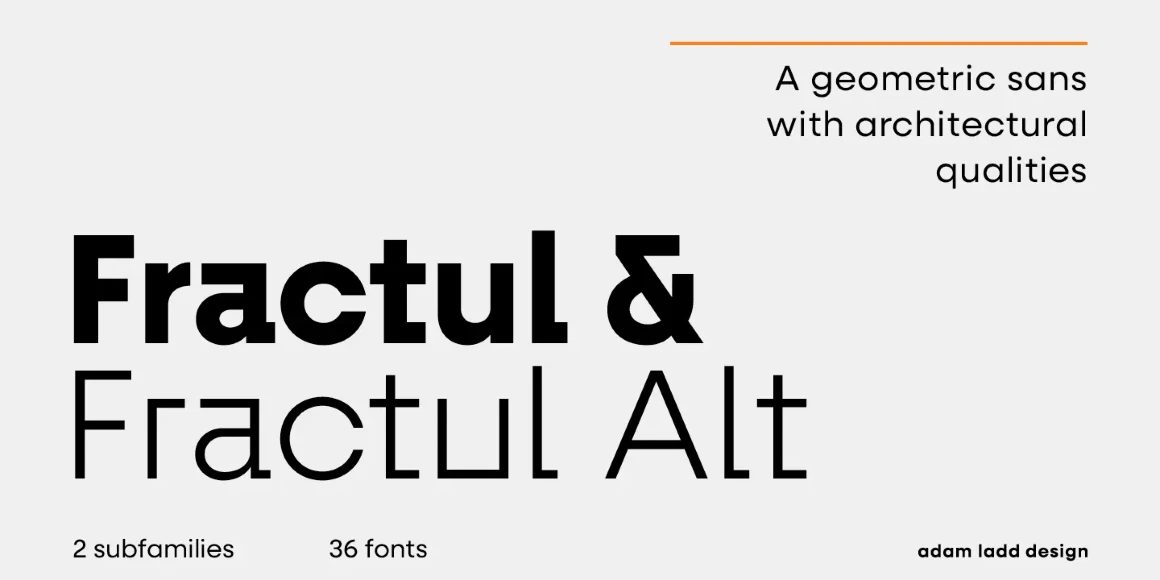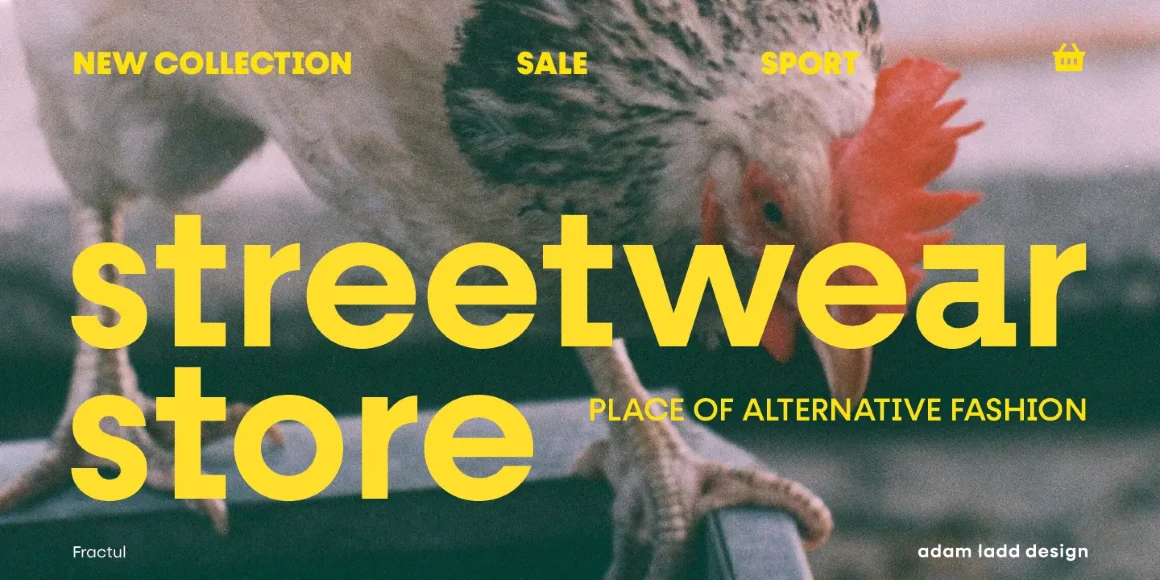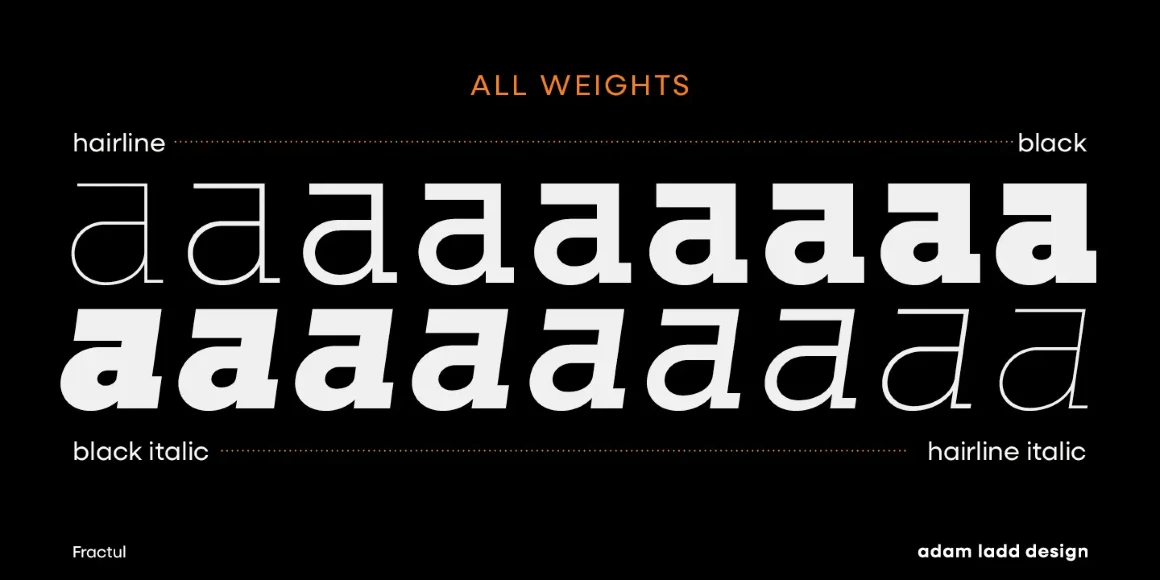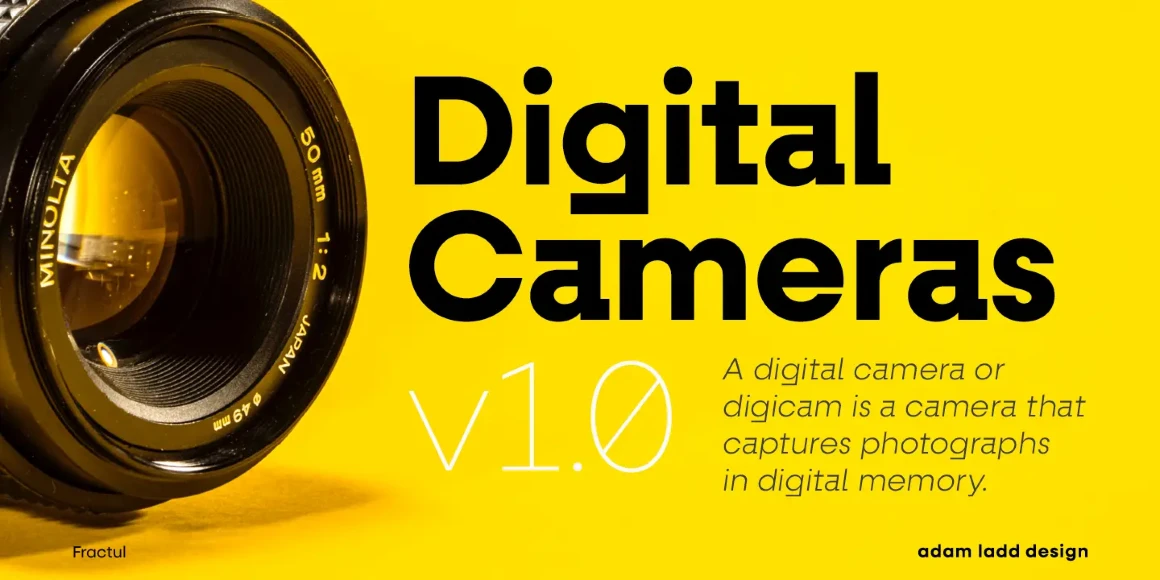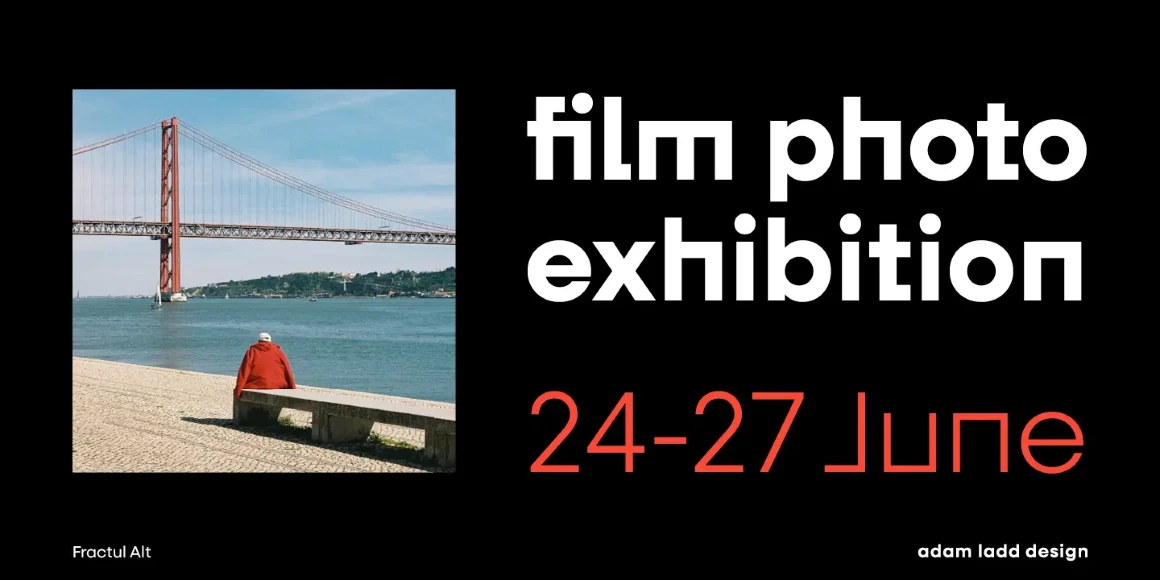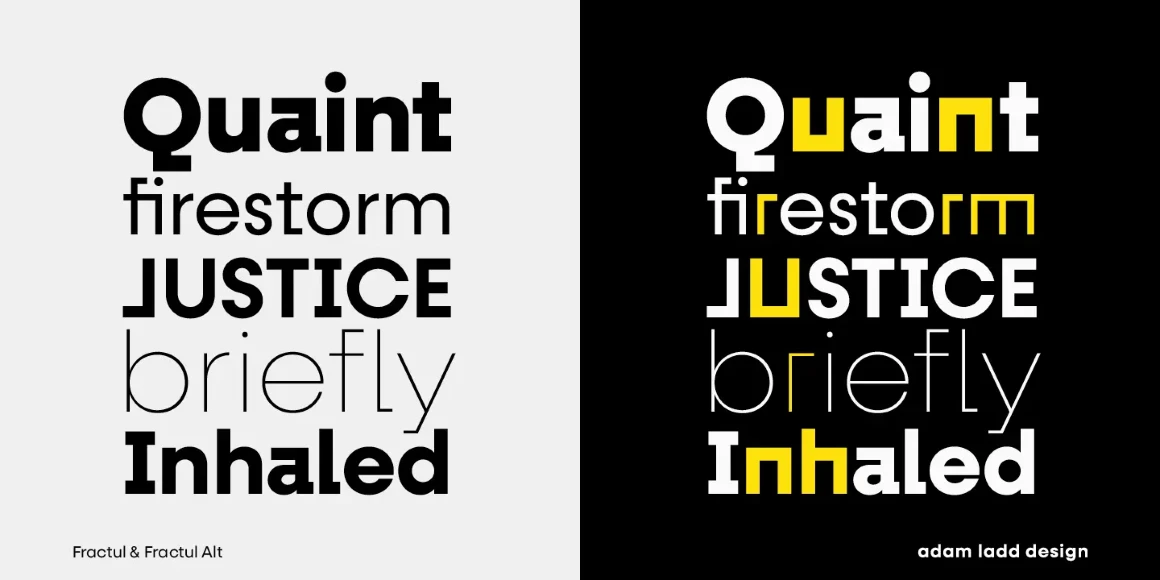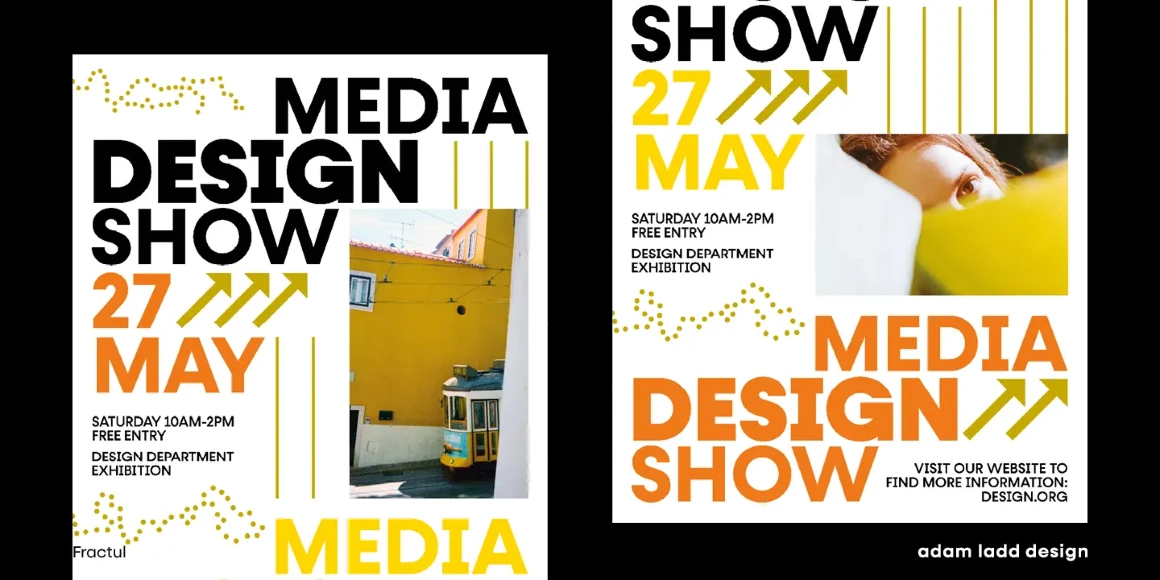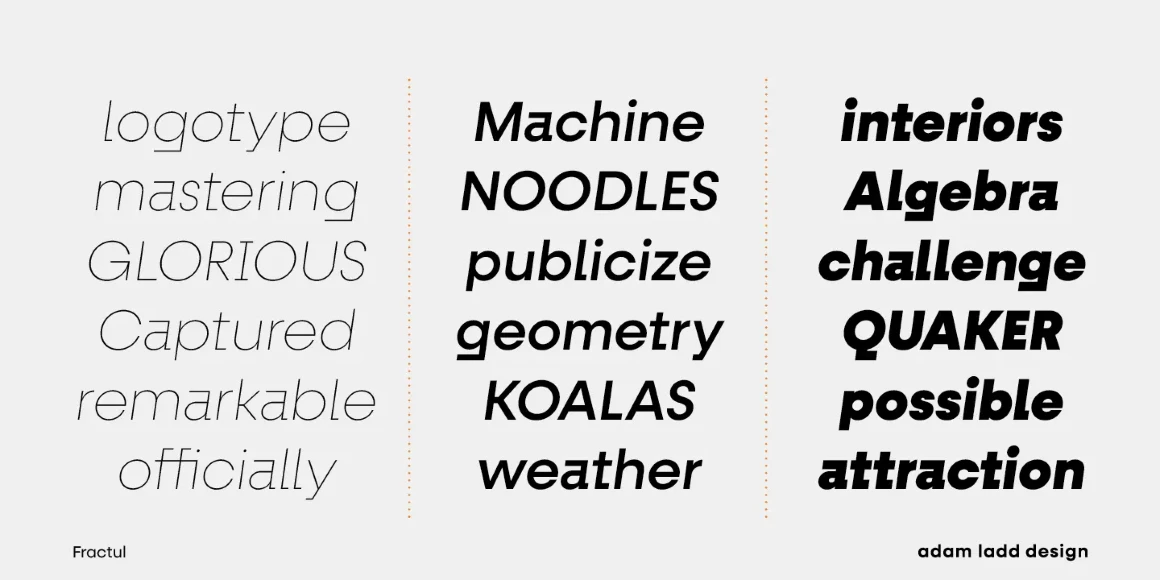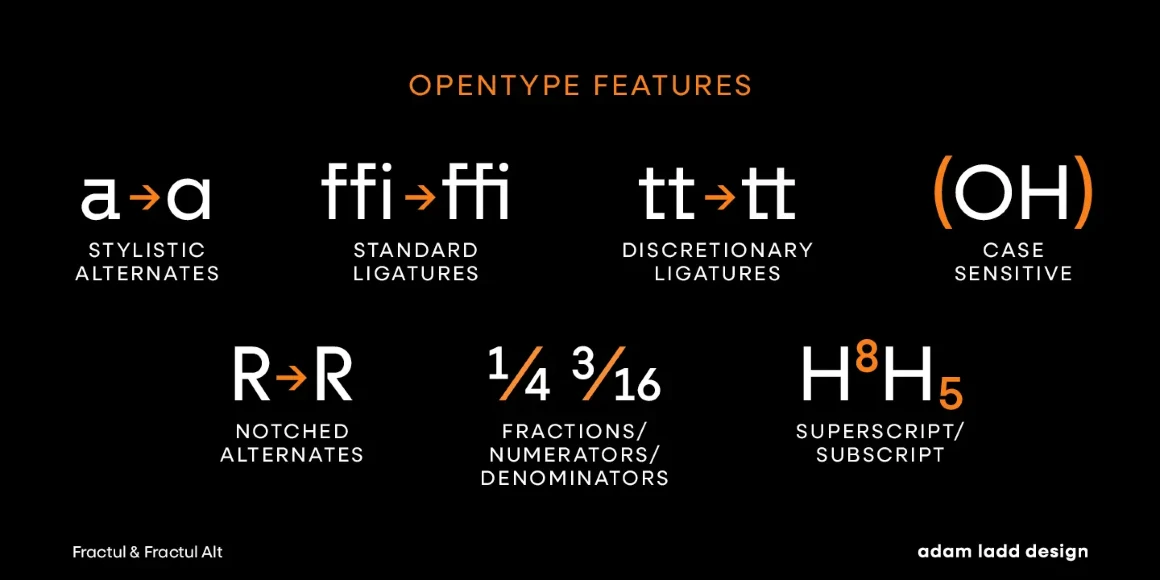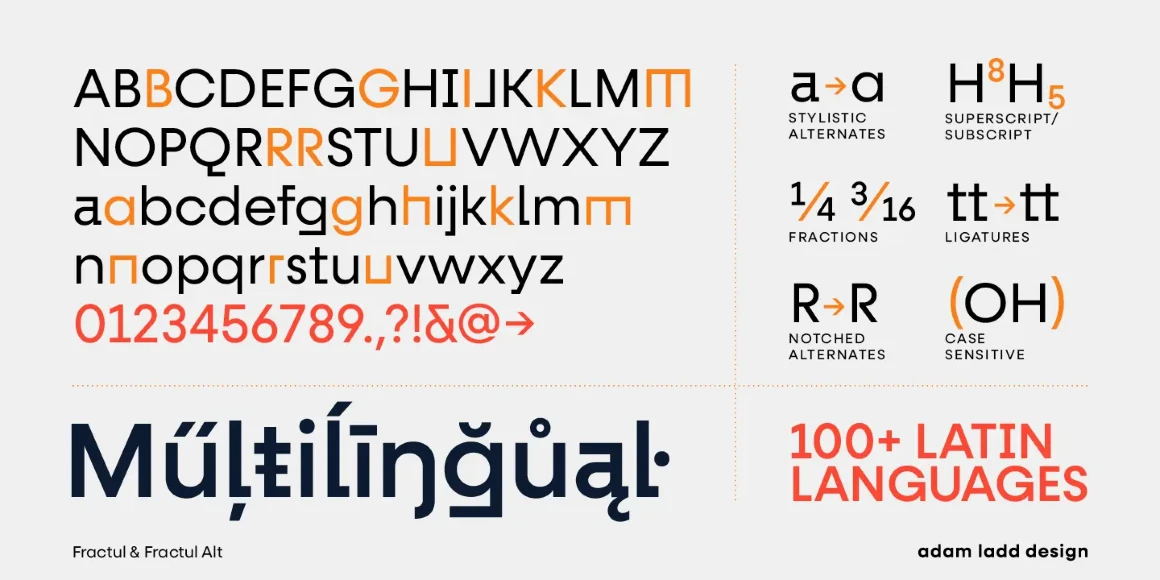
Fractul Alt
By Adam Ladd
Fractul and Fractul Alt are architectural geometric sans serifs. Dramatically modern because of a larger x-height with a more distinct and avant-garde voice — most evident in characters where specific strokes have been straightened for a strong angular appearance. Fractul has over 600 glyphs and many OpenType features: 6 stylistic sets, standard and discretionary ligatures, case-sensitive punctuation, fractions, numerators, denominators, superscript, subscript, and even a slashed zero.